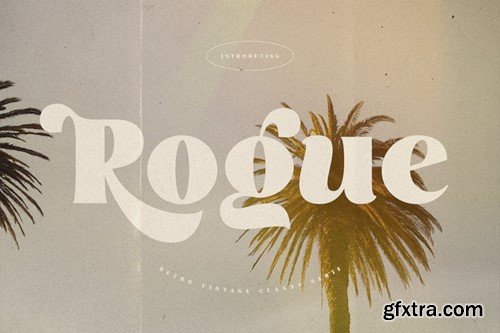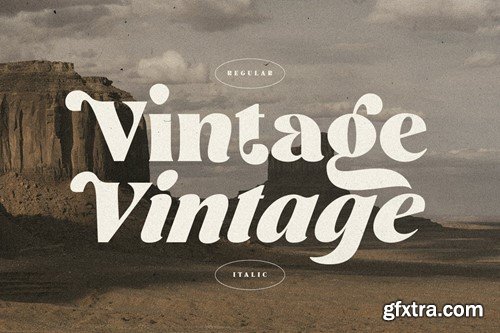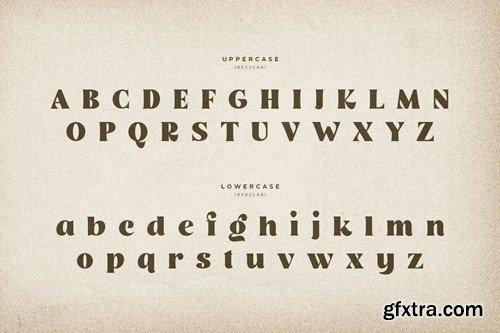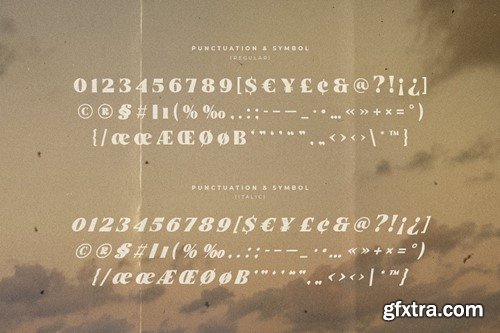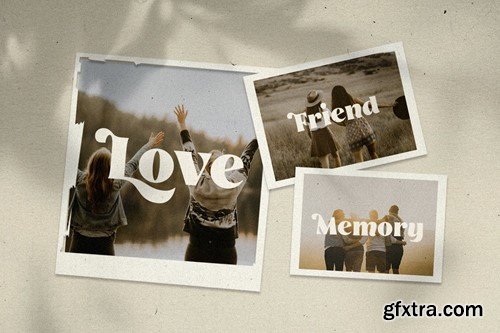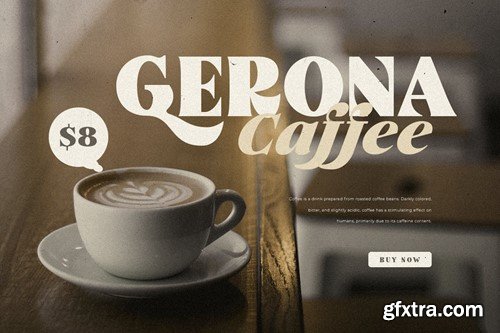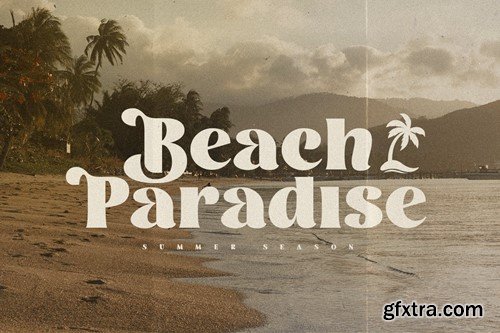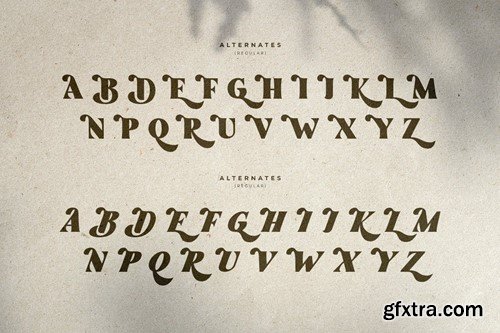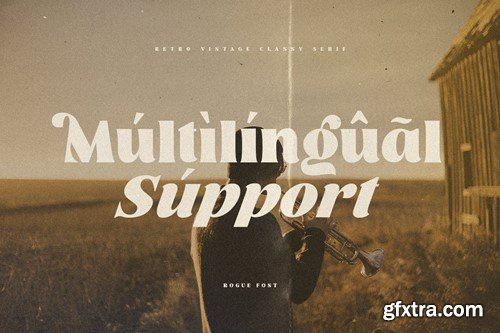
rogue - 美范复古电影字体 AGK7WRK
Rogue - Retro Vintage Cinematic Font AGK7WRK
Rogue - Retro Vintage Cinematic Font
An exclusive font tailored for vintage and cinematic feels, offering an retro aesthetic to enhance your brand's allure. Crafted with unique alternates and ligatures, this font is designed to elevate the value of your brand. Whether you're a designer or a product owner seeking vintage and modern solutions, this font provides the perfect answer. Boasting an array of vintage and cinematic characters, it opens the door to endless creative possibilities, allowing you to create a myriad of variations for your unique and perfect designs.
• Unique Characters with Alternate and Cursive Characters
• Character set A-Z
• Numerals & Punctuation
• Accented Characters (West Europe)